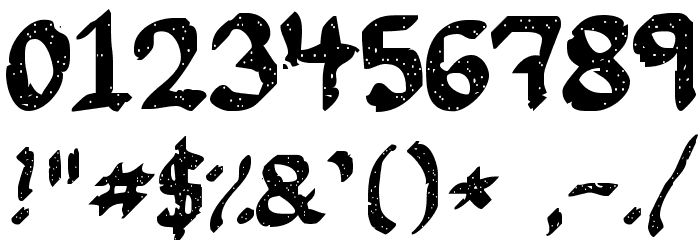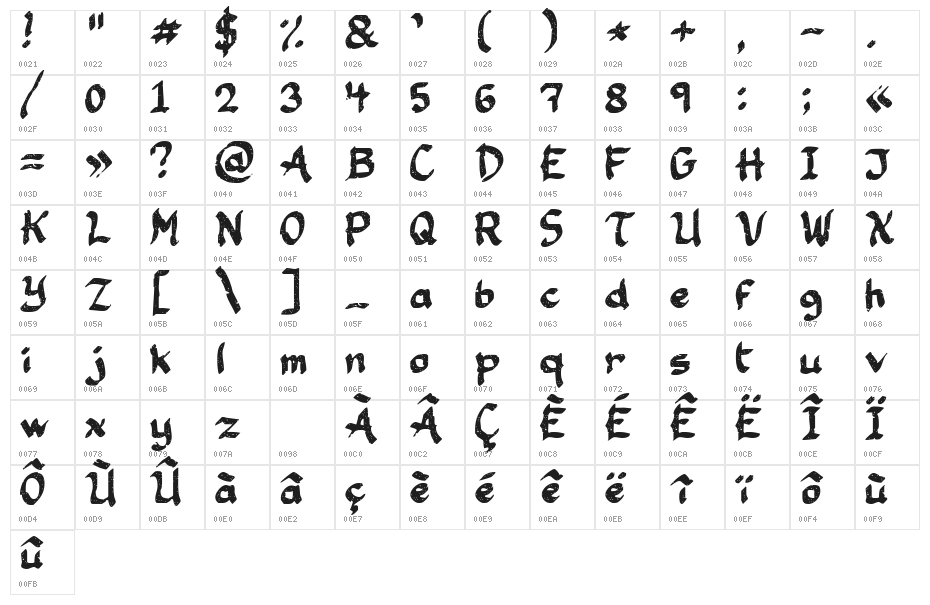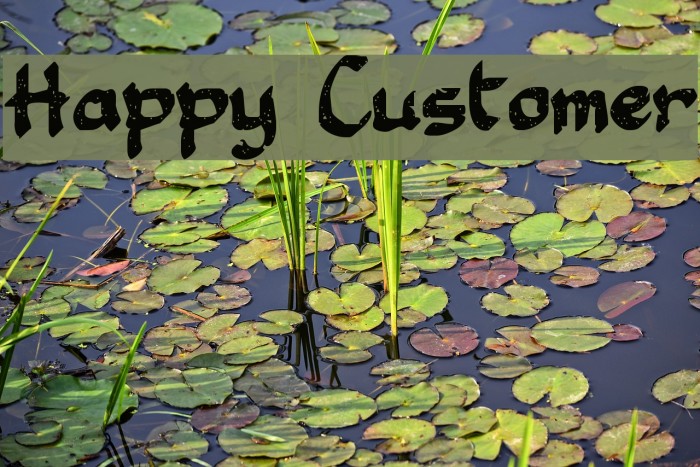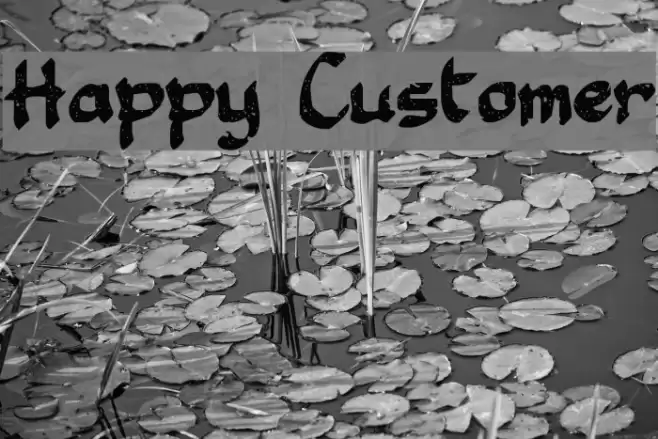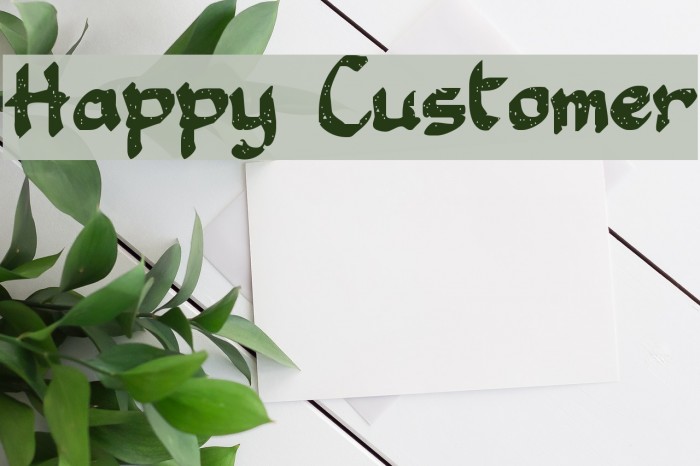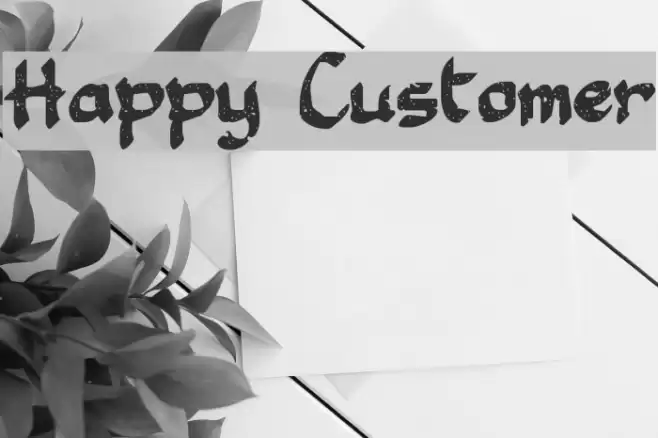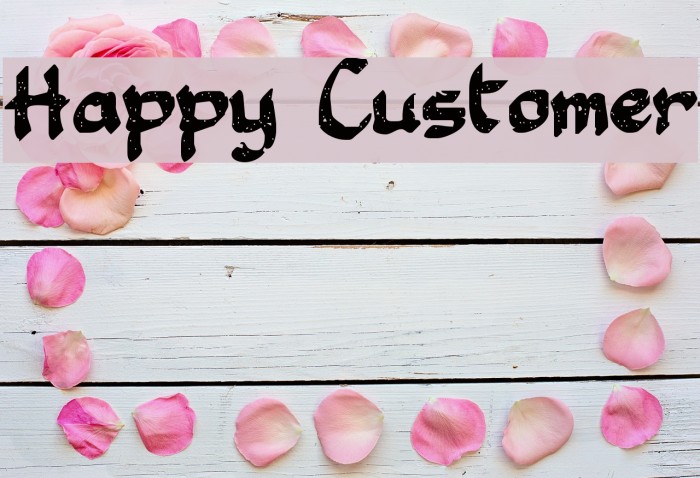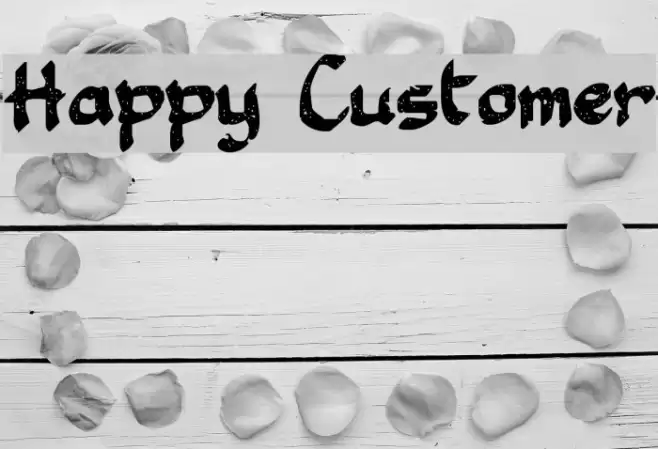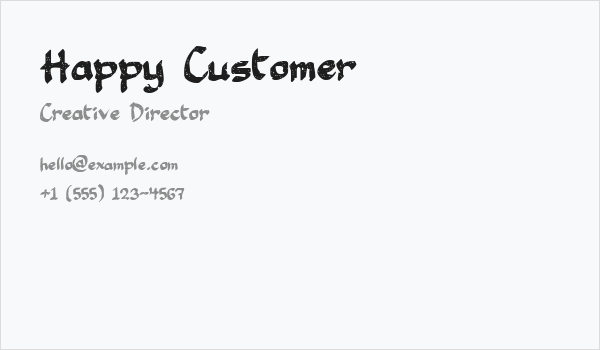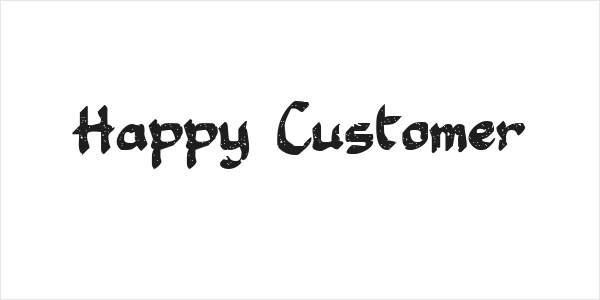
Happy Customer Font
Happy Customer Description
This font features a bold and playful design with a distressed texture that gives it a unique, worn-out appearance. The characters are slightly irregular, adding to its handcrafted feel. It combines elements of both serif and sans-serif styles, with some letters having small serifs and others being more rounded and smooth. The overall look is dynamic and eye-catching, making it suitable for creative and informal projects. The font includes a full set of uppercase and lowercase letters, numbers, and a variety of special characters, all maintaining the same textured style.
| Proposed Projects | Ideal for posters, album covers, branding for creative industries, and any project needing a bold, artistic touch. |